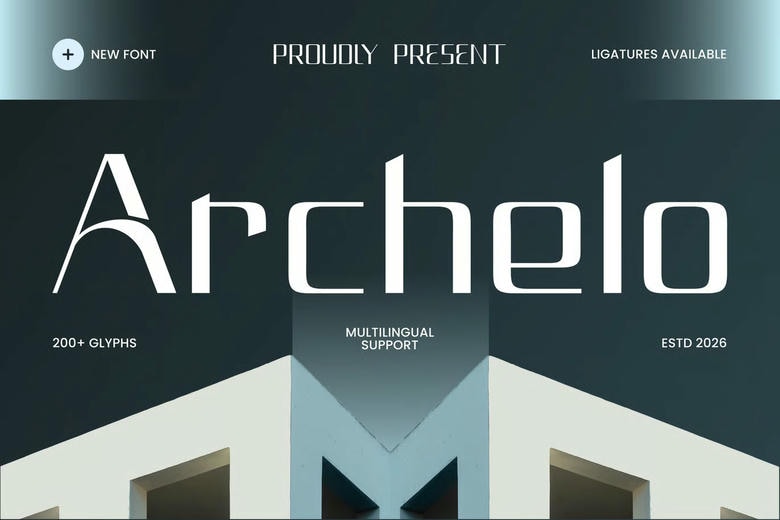
Archelo Font
Archelo is a clean, sophisticated display font inspired by the precision and elegance of modern architecture. Its refined shapes and balanced proportions give your designs a professional and unique touch. Use Archelo when you want to highlight innovation, simplicity, and architectural style.
Archelo Display Font